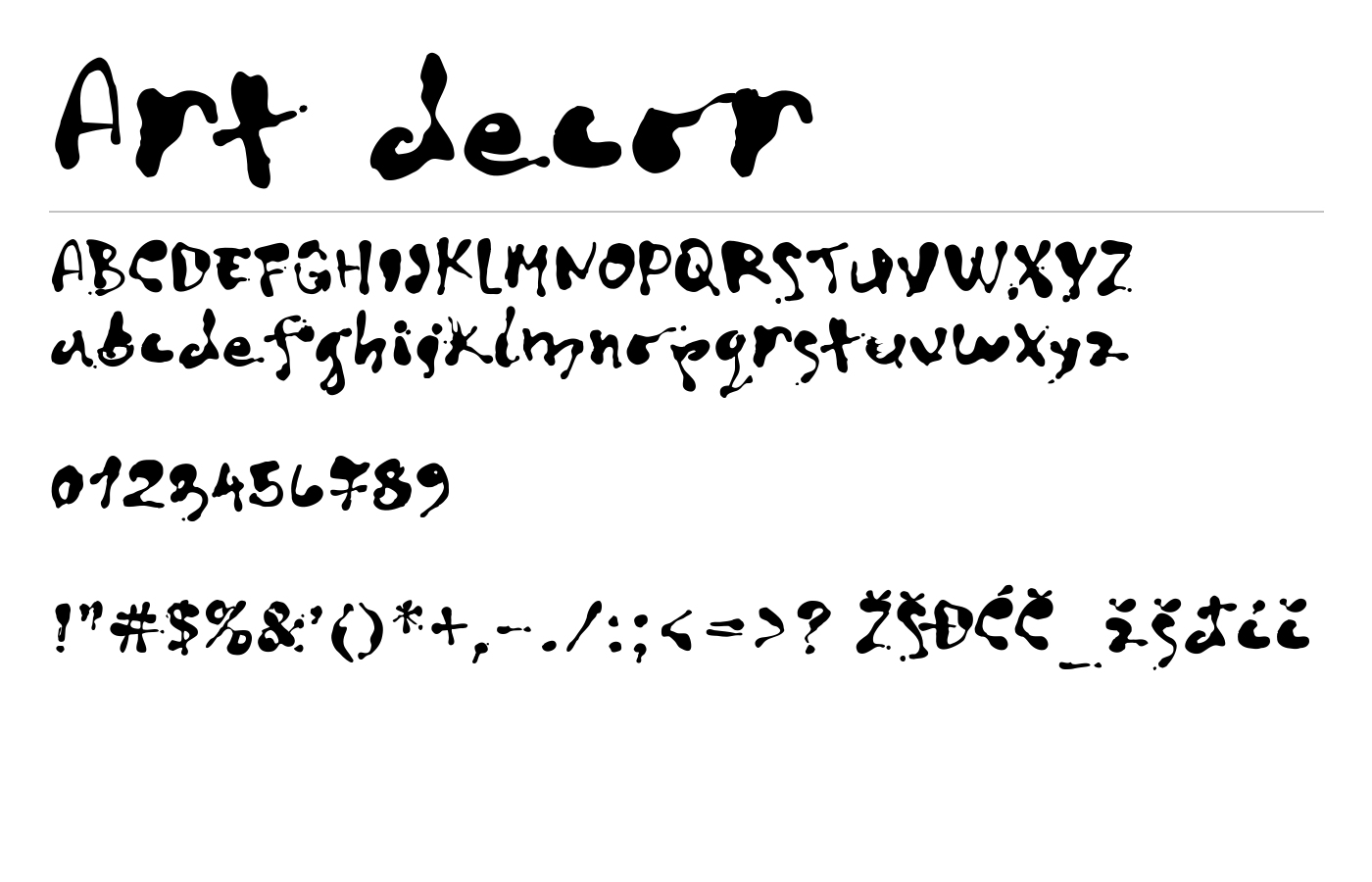
Art decor Font is a playful and artistic handwritten typeface with irregular, inkblot-inspired strokes that create a unique, organic texture. Its uneven shapes and quirky character forms give it a creative, informal feel, making it ideal for projects that want to convey originality, creativity, and a handmade touch. This font works best in artistic branding, posters, and casual editorial designs where expression and personality take center stage.
Art decor Font
About Art decor Font
| Designer | Lazar Dimitrijevic |